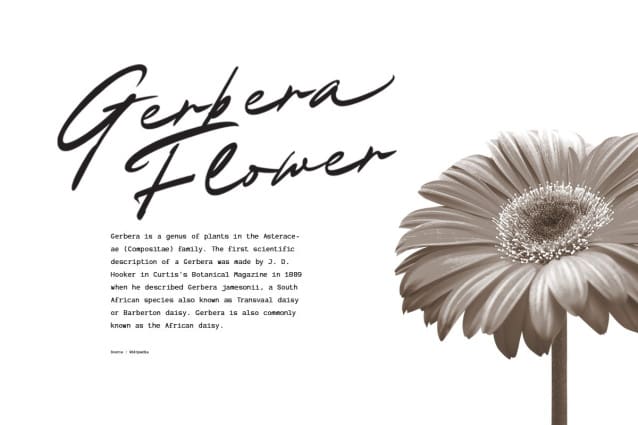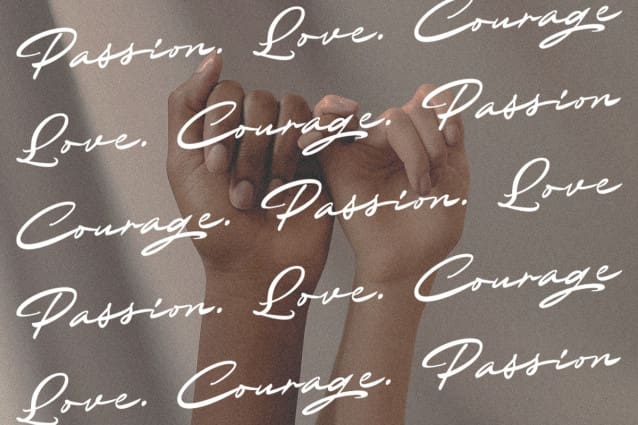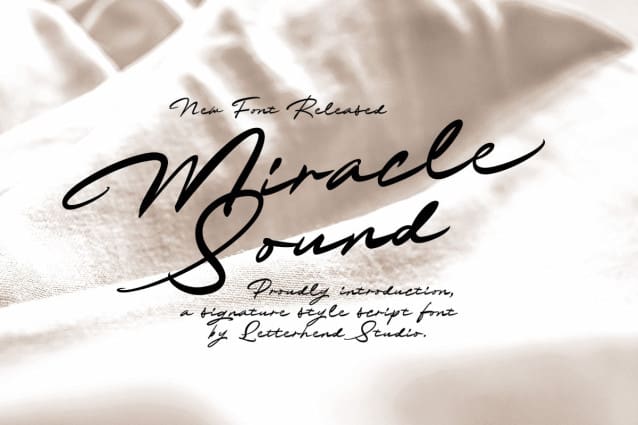
Miracle Sound Font
Miracle Sound Font is a beautiful signature script based on manual hand writing. This type of font perfectly made to be applied especially in logo, and the other various formal forms such as invitations, labels, logos, magazines, books, greeting / wedding cards, packaging, fashion, make up, stationery, novels, labels or any type of advertising purpose.